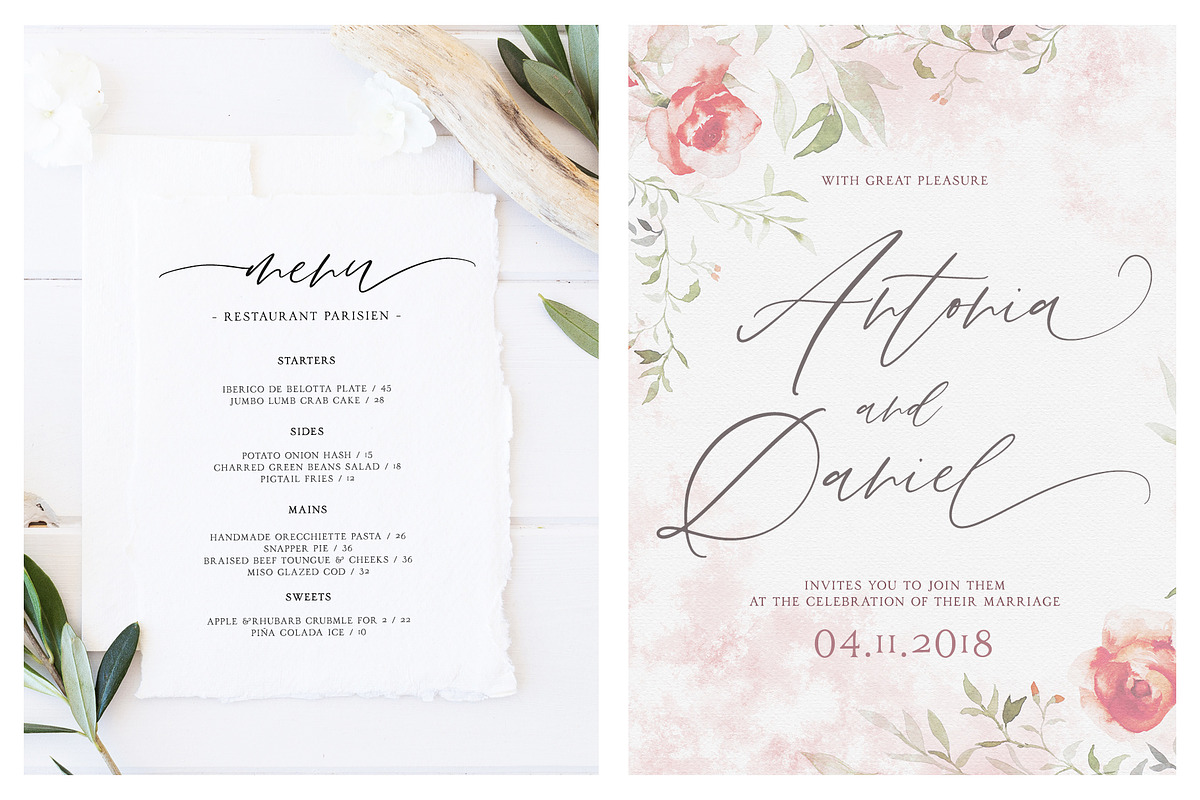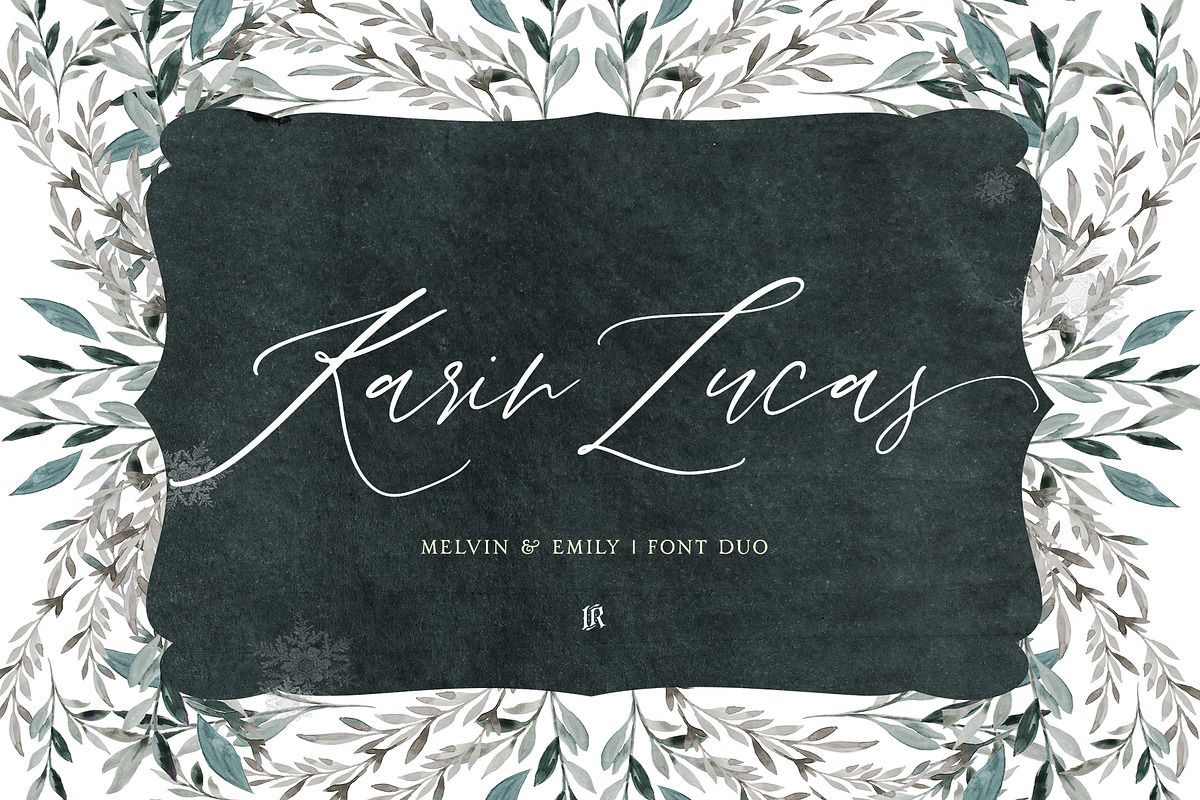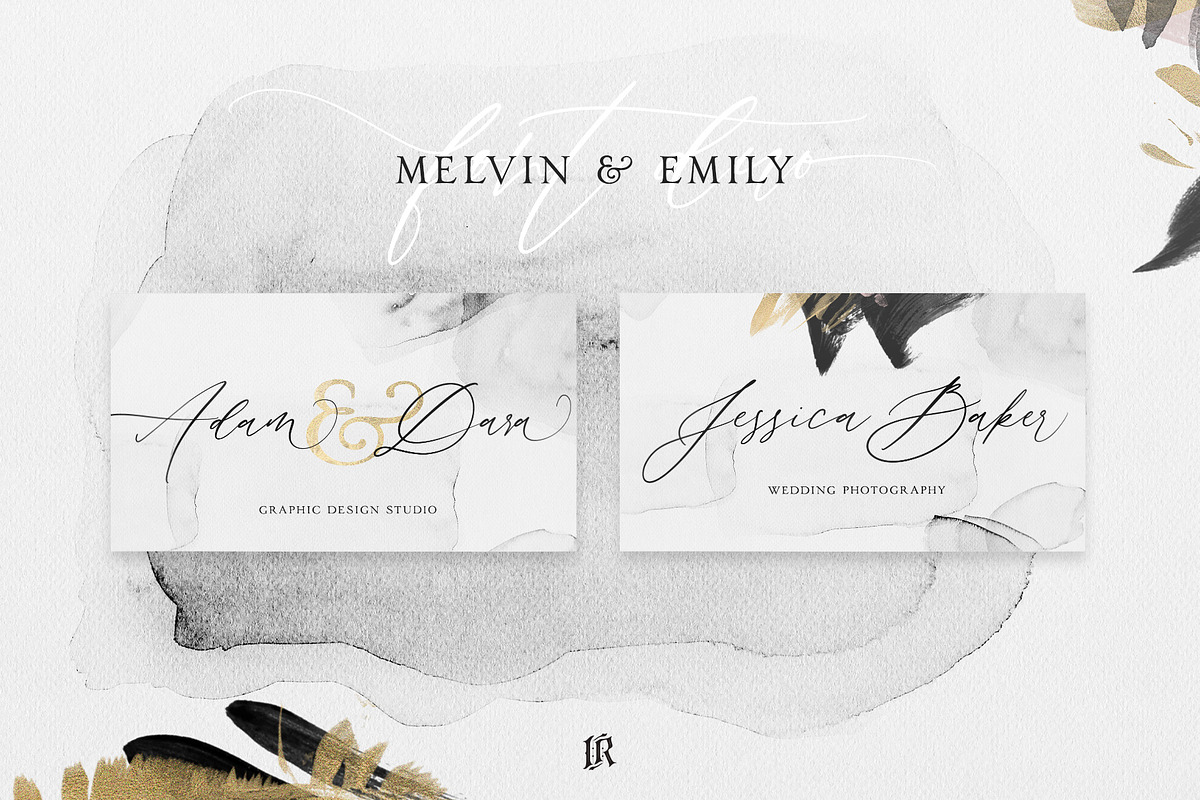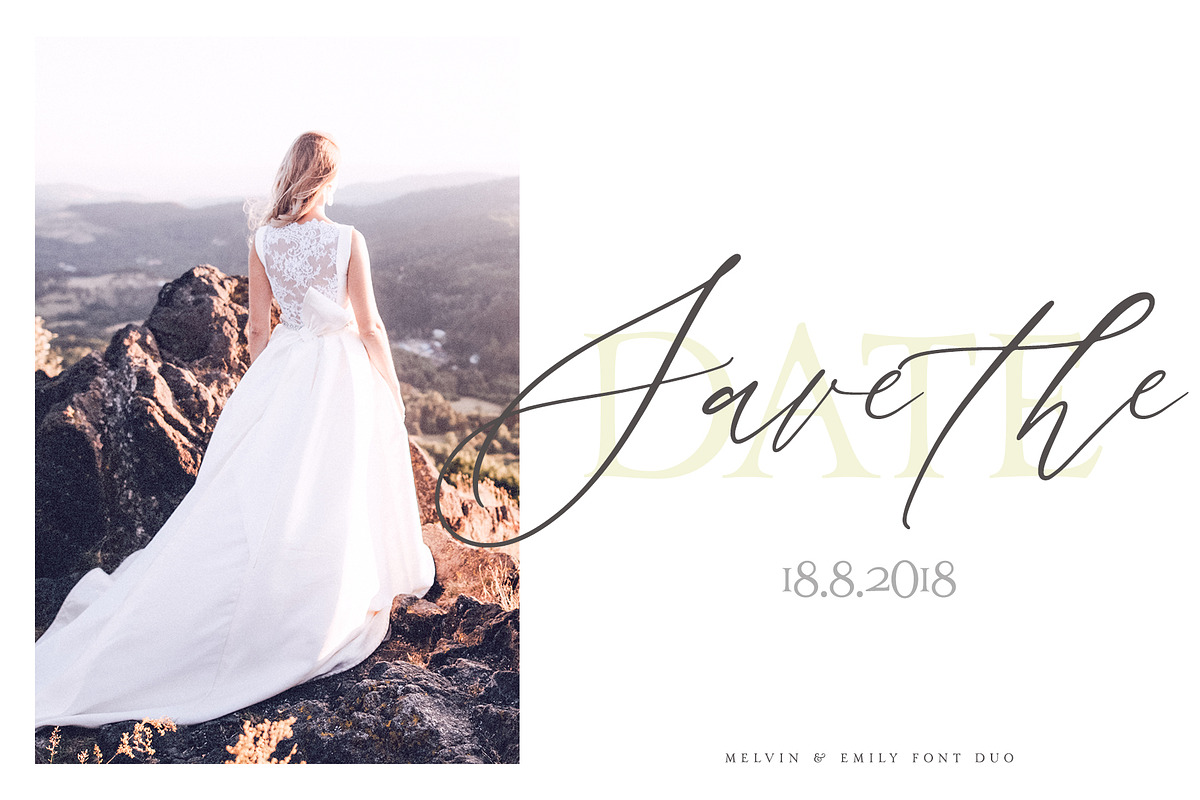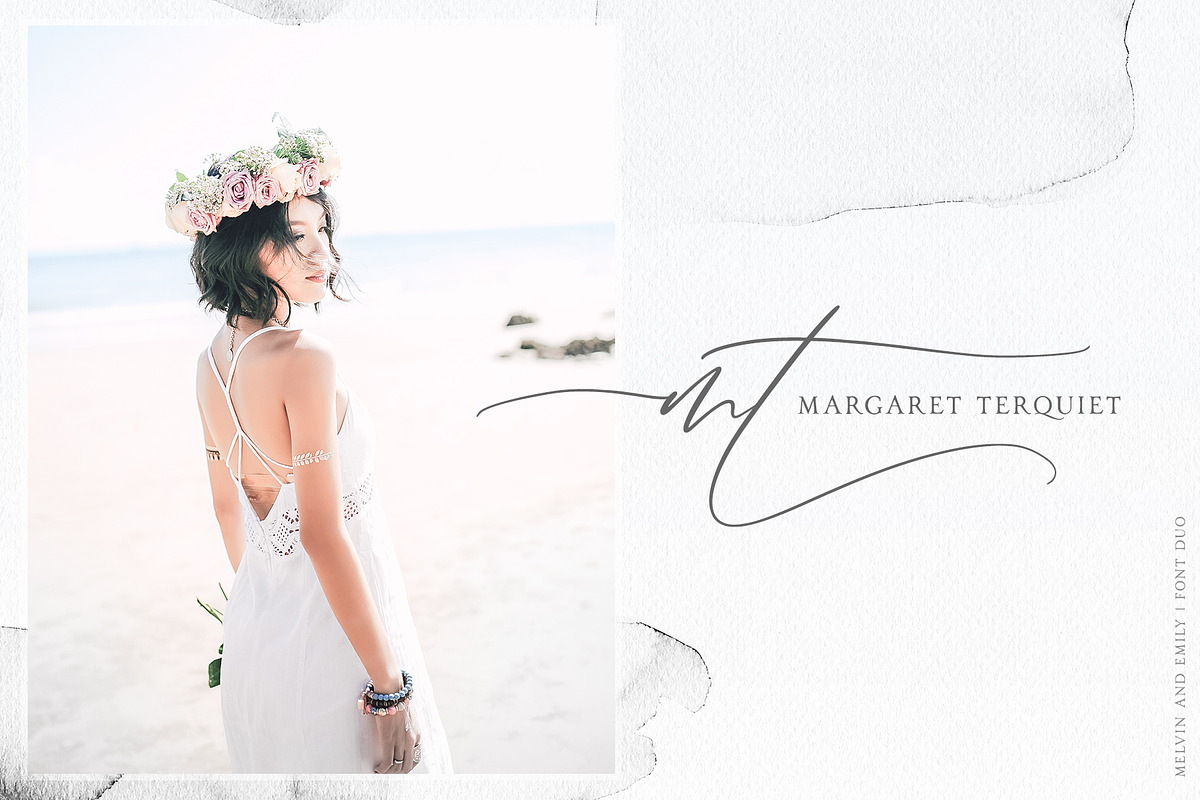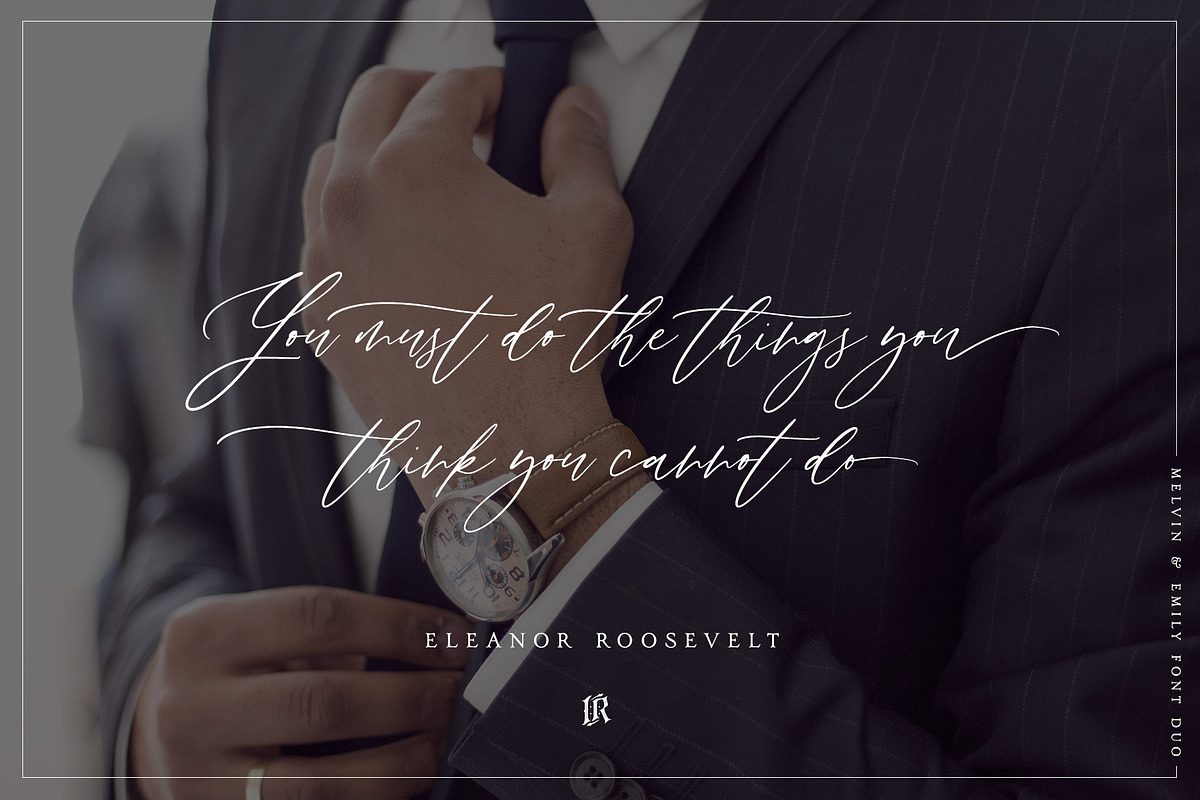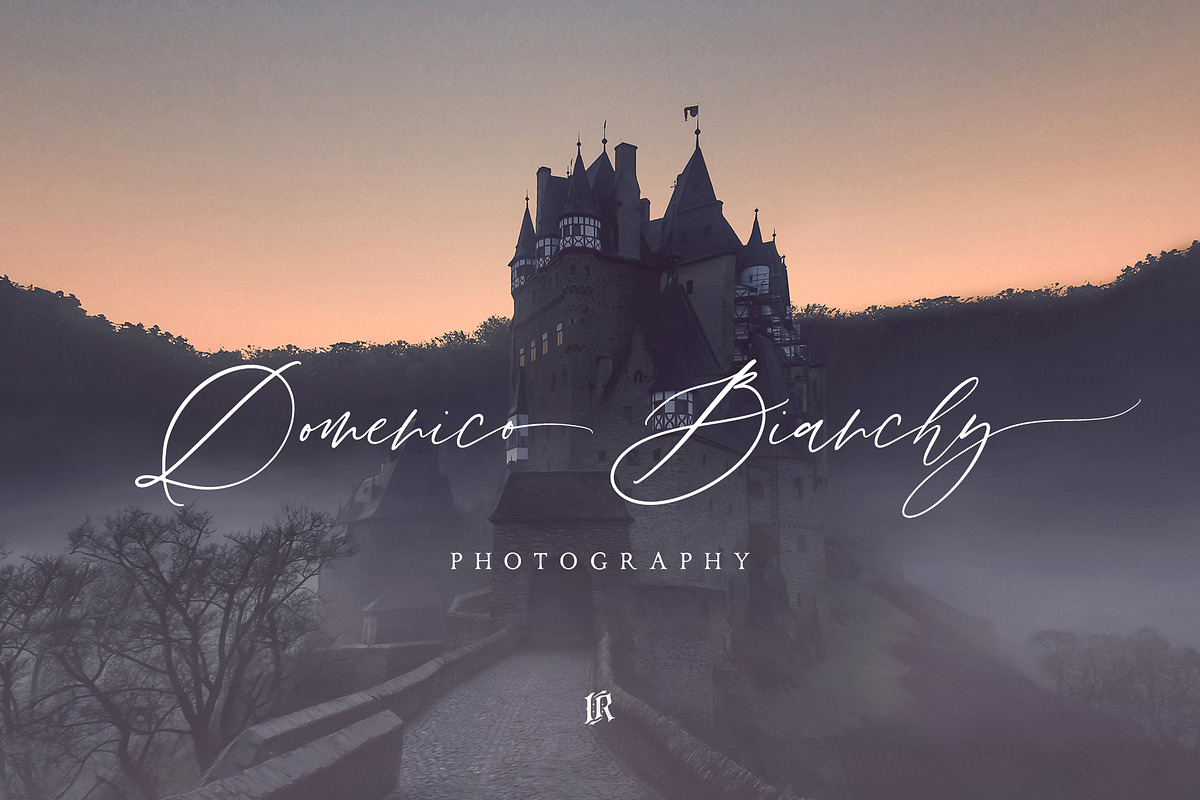
Melvin and Emily Font Duo
Melvin and Emily is a modern calligraphy font with perfect serif pair. Both fonts includes multilingual support for Western and Central Europe. These are ideal for blog website, instagram, branding, invitations, business cards, weddings and many more.
Script version also includes alternate characters for both UPPERCASE AND LOWERCASE letters, beginning ending swashes for all lowercase letters and ligarures for different styles.